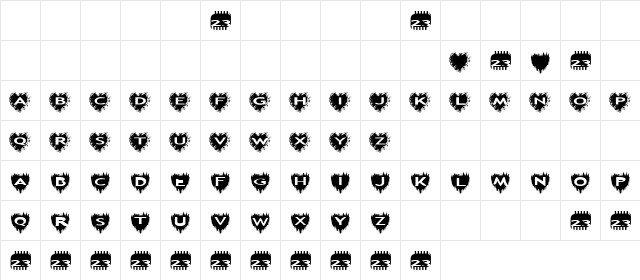
Zone23_Two Kinds of Love Normal
Design Context for Zone23_Two Kinds of Love Typeface
Zone23_Two Kinds of Love is a composed and adaptable typeface that performs quietly and consistently across a wide range of design contexts.